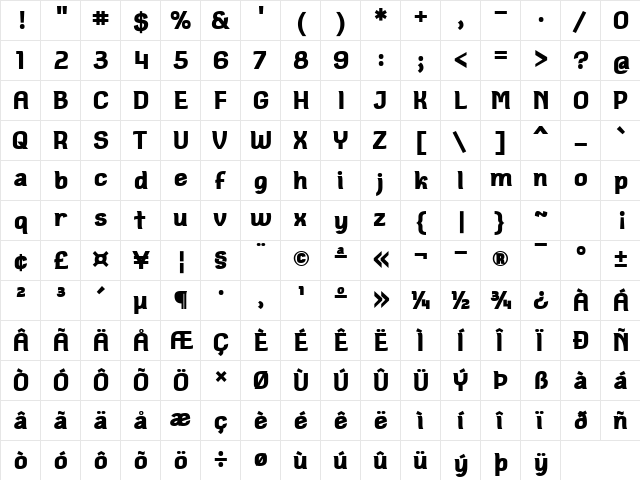
Square Antiqua Bold Font Preview
Square Antiqua Bold
Square Antiqua Bold Font Details
Design Context for Square Antiqua Typeface
Square Antiqua takes a measured approach to typography — its balanced proportions and neutral character make it a reliable workhorse for both digital and print work. Its bold stroke weight gives it real presence on the page.